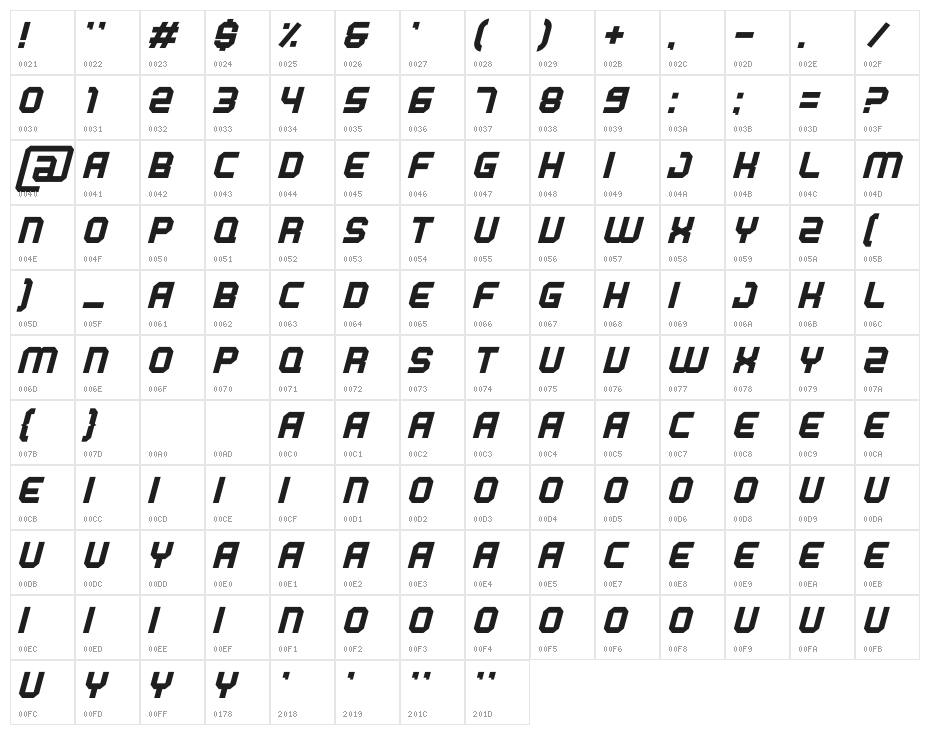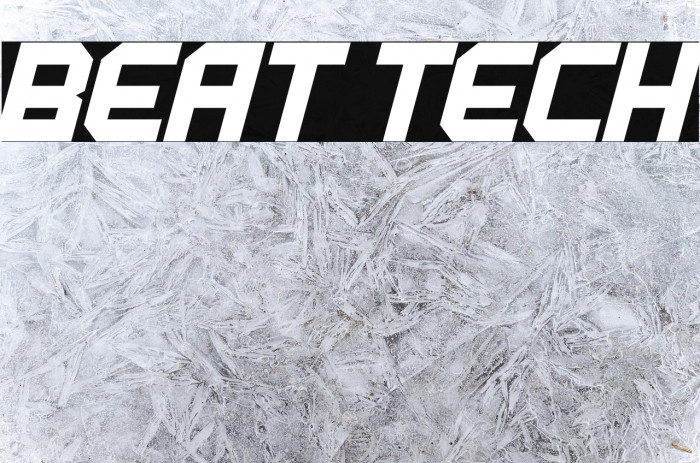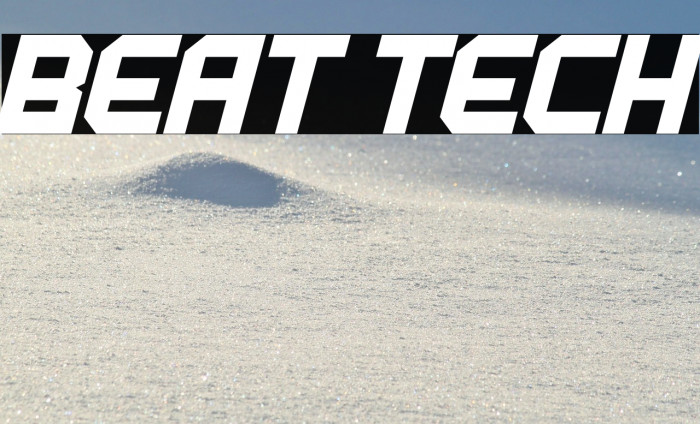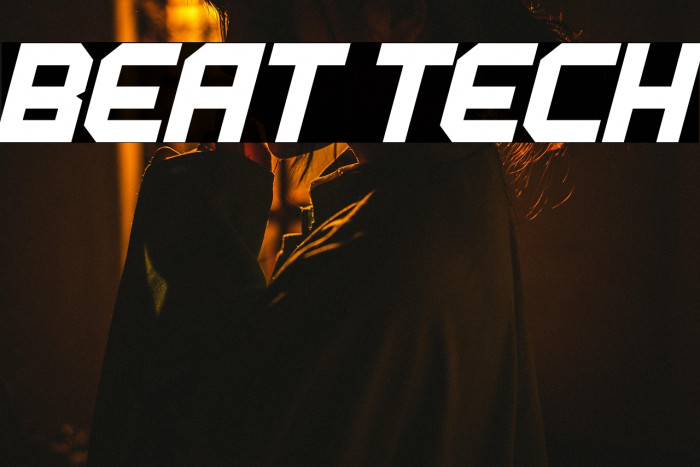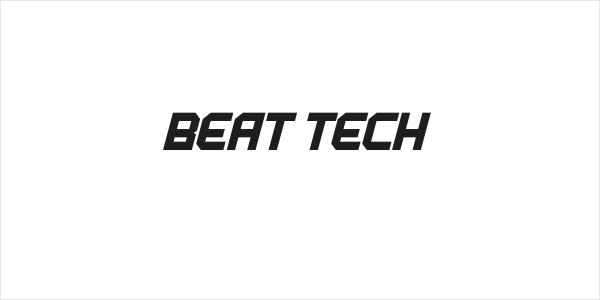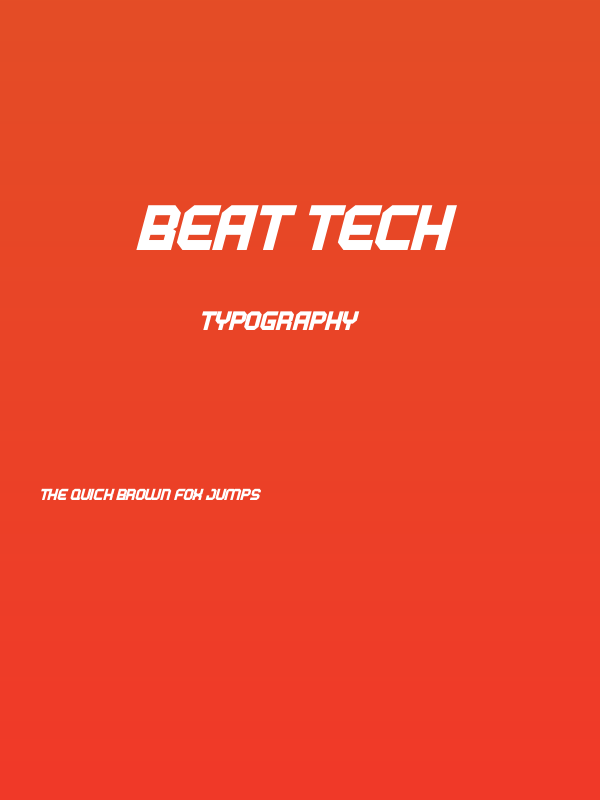
BEAT TECH Font
BEAT TECH Description
This font features a bold, angular design with a futuristic and tech-inspired aesthetic. The characters are constructed with sharp, geometric edges and a consistent slant, giving a sense of motion and speed. The uppercase and lowercase letters maintain a uniform style, with a strong emphasis on diagonal lines and sharp corners. Numbers and special characters follow the same design principles, ensuring a cohesive look across all elements. The font's distinct style makes it suitable for projects that require a modern and dynamic appearance.
| Proposed Projects | Ideal for technology branding, video game titles, sci-fi movie posters, and digital interfaces. |